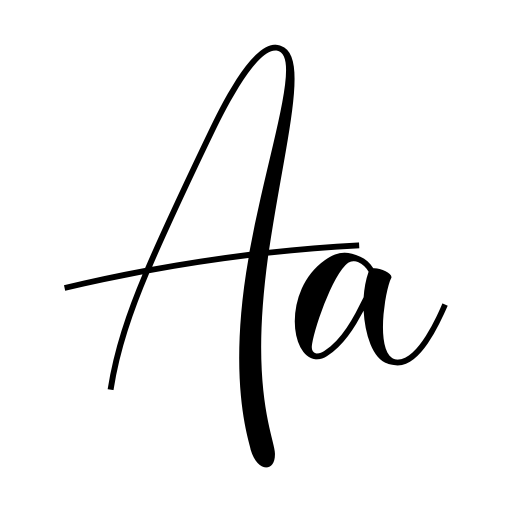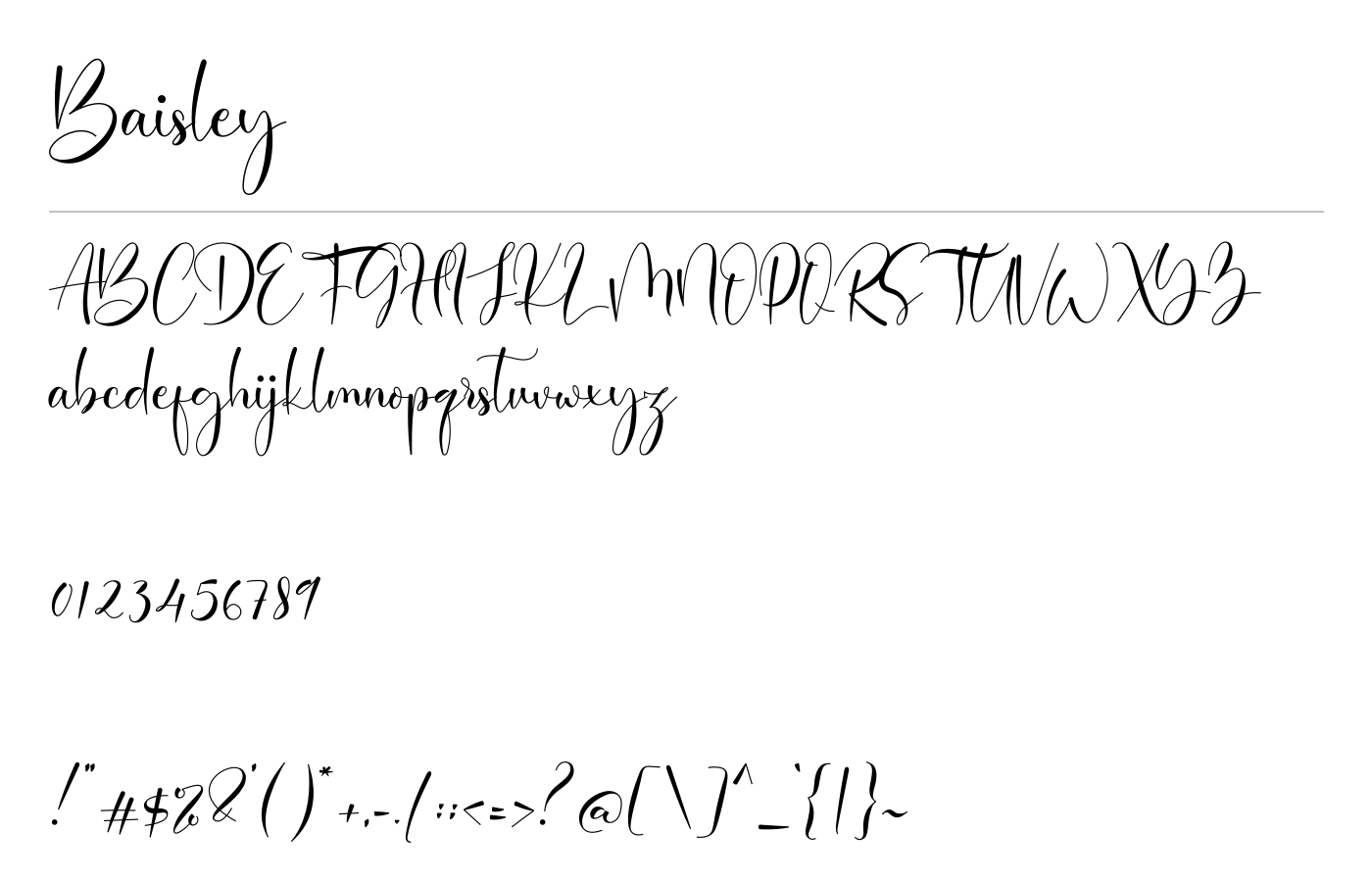
Baisley is a delicate and elegant script font featuring flowing, hand-lettered strokes that convey a sense of grace and sophistication. Its slender, slightly tall characters with varied stroke thicknesses make it ideal for upscale branding, invitations, and feminine design projects where a personal, artistic touch is desired. This font works beautifully for headlines, logos, and decorative text that seeks to express charm and refinement.
Baisley Font
About Baisley Font
| Designer | Nissa Nana |